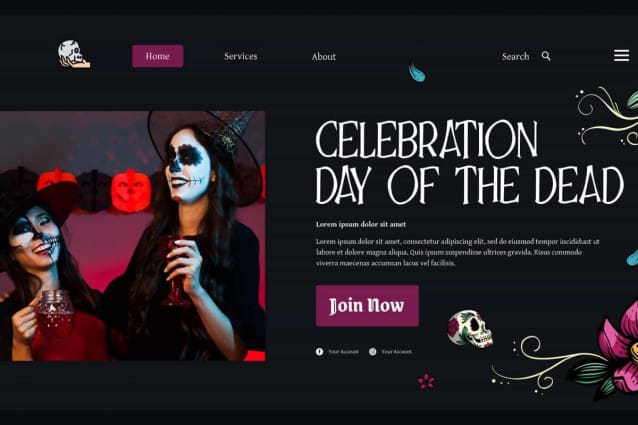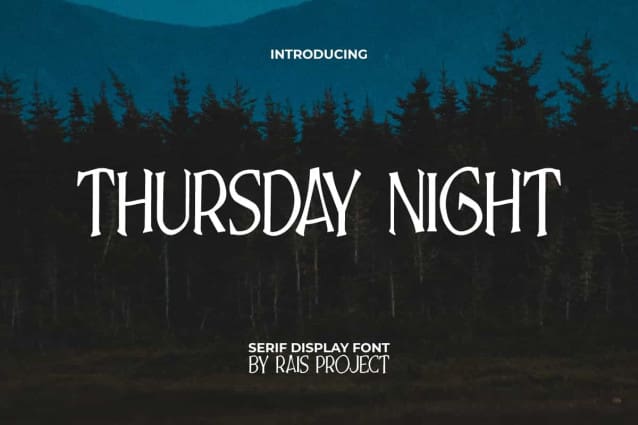
Thursday Night Font
Thursday Night Font is a font created by RaisProject. It is a cute playful serif display font inspired from several fun horror games and movies. With the characteristic of a serif font that has a short line at the end, this font at first glance resembles a bone or thorn. It will be good for any designs, such as brand image, cover, custom design, invitation, label, magazine, marketing material, menu, poster, product packaging, quotes, signage, website page, and more!
Thursday Night Font including a complete set of ALL CAPS for Uppercase and Lowercase basic characters, Numerals, and large range of Punctuation. This font also suitable for various industries, such as advertising, beauty product, cafe, event or festival, fashion, home furniture, marketing, photography, printing, publishing, etc.